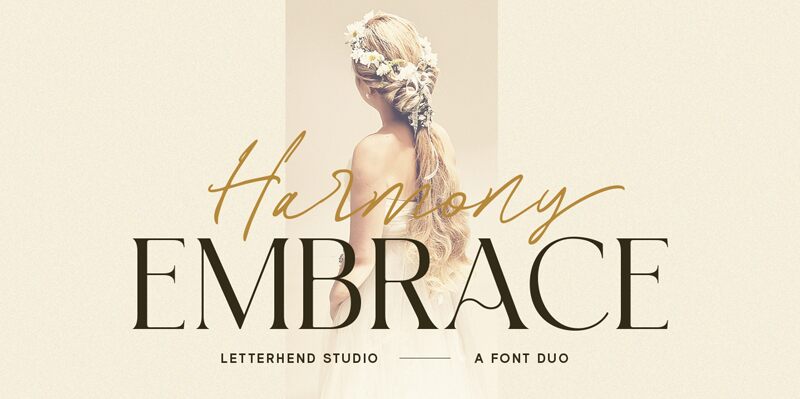
Harmony Embrace Serif font by Letterhend Studio brings a unique handwritten elegance to the classic serif style. Featuring graceful curves and sophisticated details, this font exudes charm and warmth. Its artistic flair makes it perfect for projects requiring a personal touch without sacrificing professionalism.
This free font is ideal for various design contexts, such as wedding invitations, branding, and editorial layouts, offering both distinctiveness and readability. Download Harmony Embrace Serif to infuse your designs with a harmonious blend of tradition and creativity today.